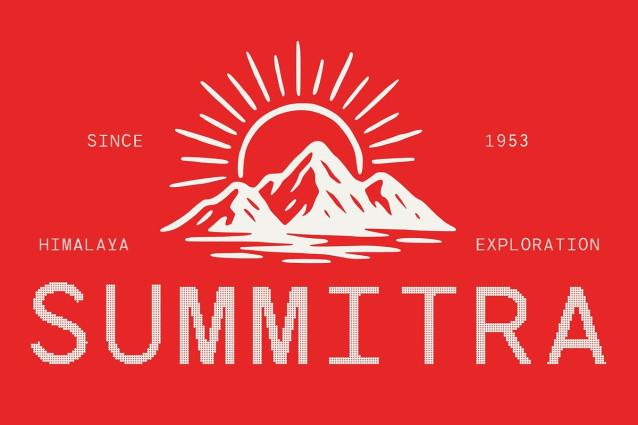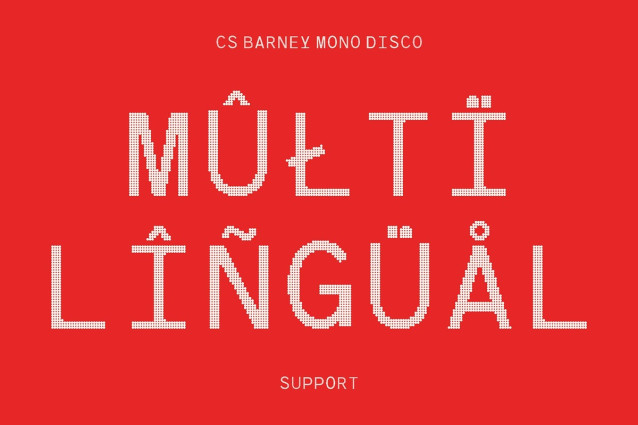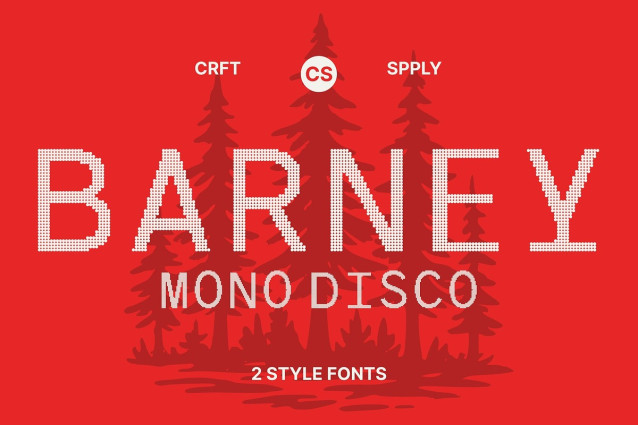
CS Barney Mono Disco Font This font merges technical precision and creative flair, presenting a modern monospaced sans serif font with clean geometric forms and perfectly consistent spacing. Its structure conveys a sense of balance and clarity, while the disco influence adds a vibrant, expressive twist.
Geometric Design for Modern Simplicity Every character in this font is crafted with sharp geometry and uniform rhythm, ensuring visual harmony across all compositions. The monospaced structure enhances readability and alignment, making it perfect for digital layouts, futuristic posters, and modern interfaces.
Disco Look for Expressive Glamour The disco inspired finish introduces sparkle, depth, and energy, transforming its minimalist structure into something lively and captivating. This shimmer effect adds a touch of glamour and movement, ideal for digital branding, creative visuals, and party themed designs.
Perfect for Bold, Modern Creations Whether used for headlines, digital campaigns, or experimental typography, this font delivers a refined yet dynamic aesthetic. It bridges the gap between order and excitement, appealing to designers seeking both precision and personality.